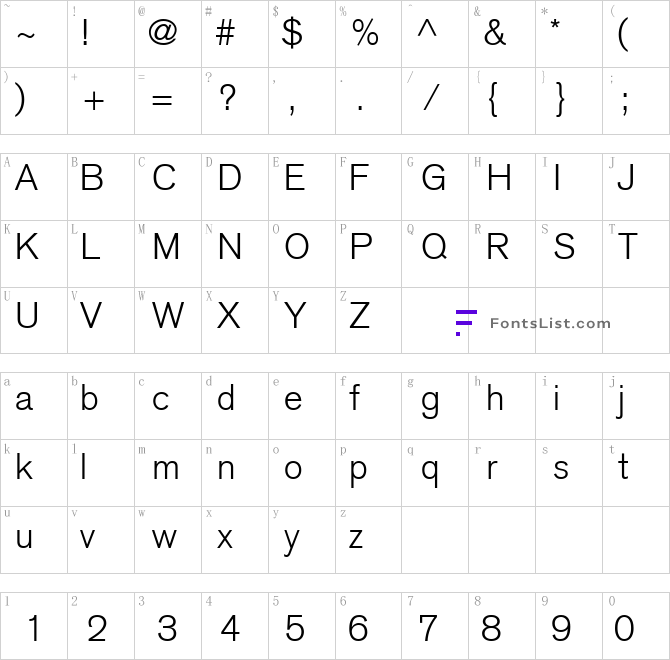
- Full Name:Akzidenz Grotesk Light
Akzidenz-Grotesk-Light.ttf is a very beautiful artistic font, Akzidenz-Grotesk-Light.ttf is widely used in the design and printing of various books and pictures,Akzidenz-Grotesk-Light.ttf has a strong visual impact,Akzidenz-Grotesk-Light.ttf is a commonly used font in newspapers, magazines and books, and is used in posters, e-commerce Poster design, store design, logo design, font design and other fields.Akzidenz-Grotesk-Light.